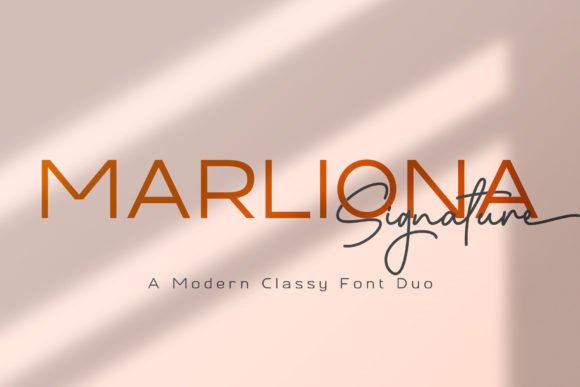
Welcome to the world of Marliona, where modern meets classy in the form of a font duo that will take your design projects to new heights. Created by the talented team at Madatype Studio, Marliona is the epitome of elegance and flair.
Featuring a smooth sans serif font and a chic signature font, Marliona is the perfect choice for those seeking the best fonts for signature logos. With its clean lines and stylish curves, this font duo adds a touch of sophistication to any design.
What sets Marliona apart from other fonts is its versatility. Whether you're working on a casual project or a sporty design, Marliona adapts effortlessly to suit your needs. Its sleek and professional appearance makes it an ideal choice for logos, posters, flyers, invitations, and so much more.
But Marliona isn't just about looks. It's about capturing emotions and leaving a lasting impression. When you download Marliona, you're not just getting a font – you're getting a tool that will elevate your brand and captivate your audience. With Marliona, your designs will speak louder than words.
Imagine the impact of a logo that exudes confidence and sophistication, or a poster that grabs attention from across the room. Marliona empowers you to make a statement, to stand out from the crowd, and to leave a lasting impression on anyone who lays eyes on your work.
Whether you're a seasoned designer or just starting out, Marliona is here to make your creative journey a breeze. Its user-friendly nature allows you to effortlessly bring your vision to life, without any limitations. Marliona gives you the freedom to explore and experiment, to create something truly unique.
So, why wait? Experience the beauty and versatility of Marliona today. Download this font duo and unlock endless possibilities for your design projects. Join the growing community of designers who have made Marliona their go-to font for signature logos and beyond.
Don't settle for ordinary. Choose Marliona and let your creativity soar. Your designs deserve the best, and with Marliona, they'll have it. Get ready to make a statement that leaves a lasting impression. Marliona – where elegance meets versatility.